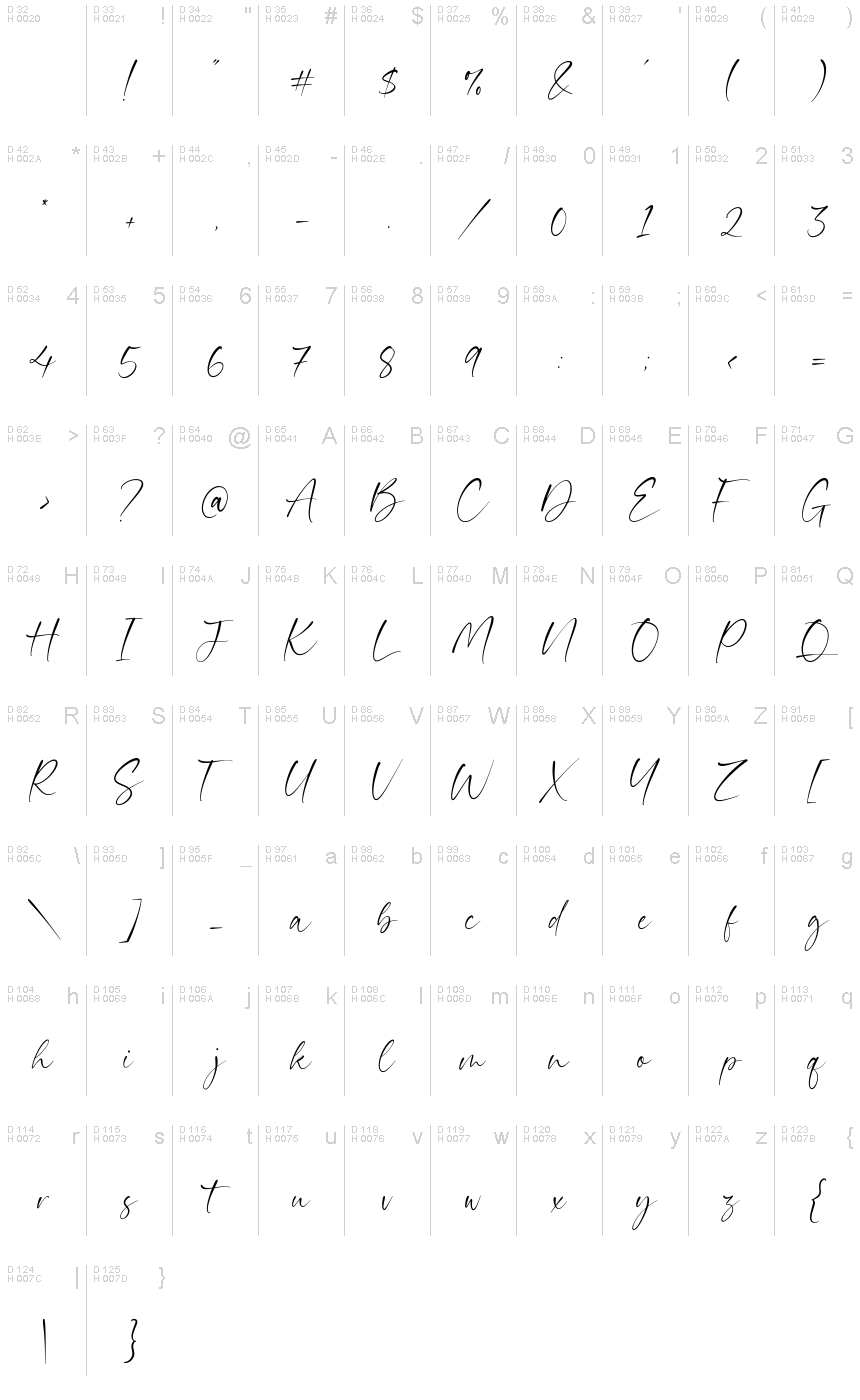
Daytimes
Daytimes is a charming, handwritten font crafted by Timur Type. This light-weight script exudes a sense of warmth and authenticity, effortlessly capturing the essence of handcrafted design. The fluid, organic strokes evoke a casual, yet elegant aesthetic, making it a captivating choice for a wide range of design applications.
Daytimes' versatility shines through its ability to seamlessly integrate into various design contexts, from editorial layouts and product packaging to branding and social media content. Its natural, expressive character lends itself to projects that seek to convey a personal, handmade feel, fostering a genuine connection with the audience.